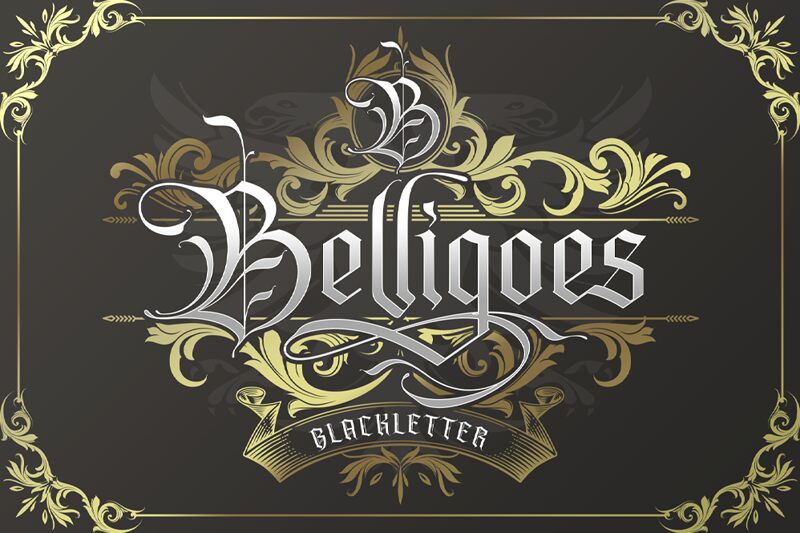
Belligoes, the semi-light blackletter font by Alit Design, is the perfect modern gothic font for your projects. Its extra-condensed width adds a sleek and sophisticated touch to any design, making it an excellent choice for branding and packaging designs. The unique style of Belligoes also makes it suitable for book covers and editorial designs where you want to make a bold statement. Whether you're designing for fashion, music or lifestyle brands, Belligoes will add an edgy flair to your work that is sure to stand out.
Belligoes